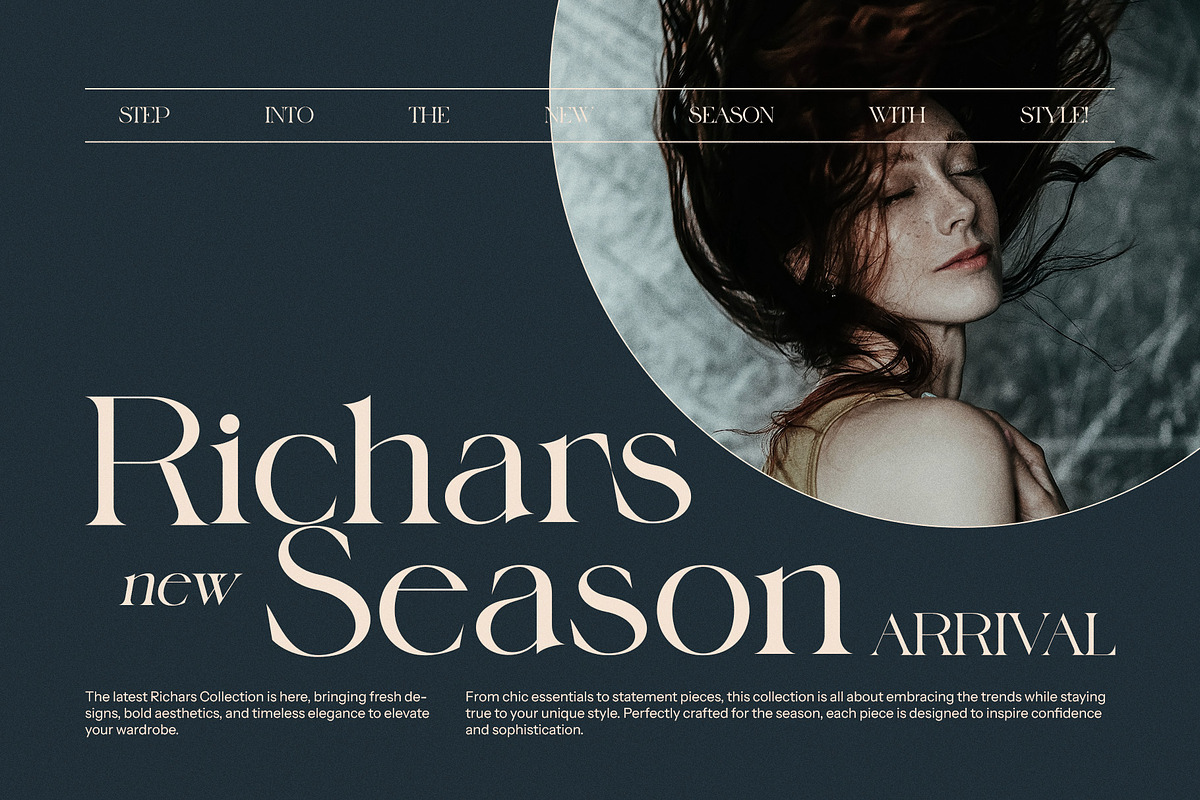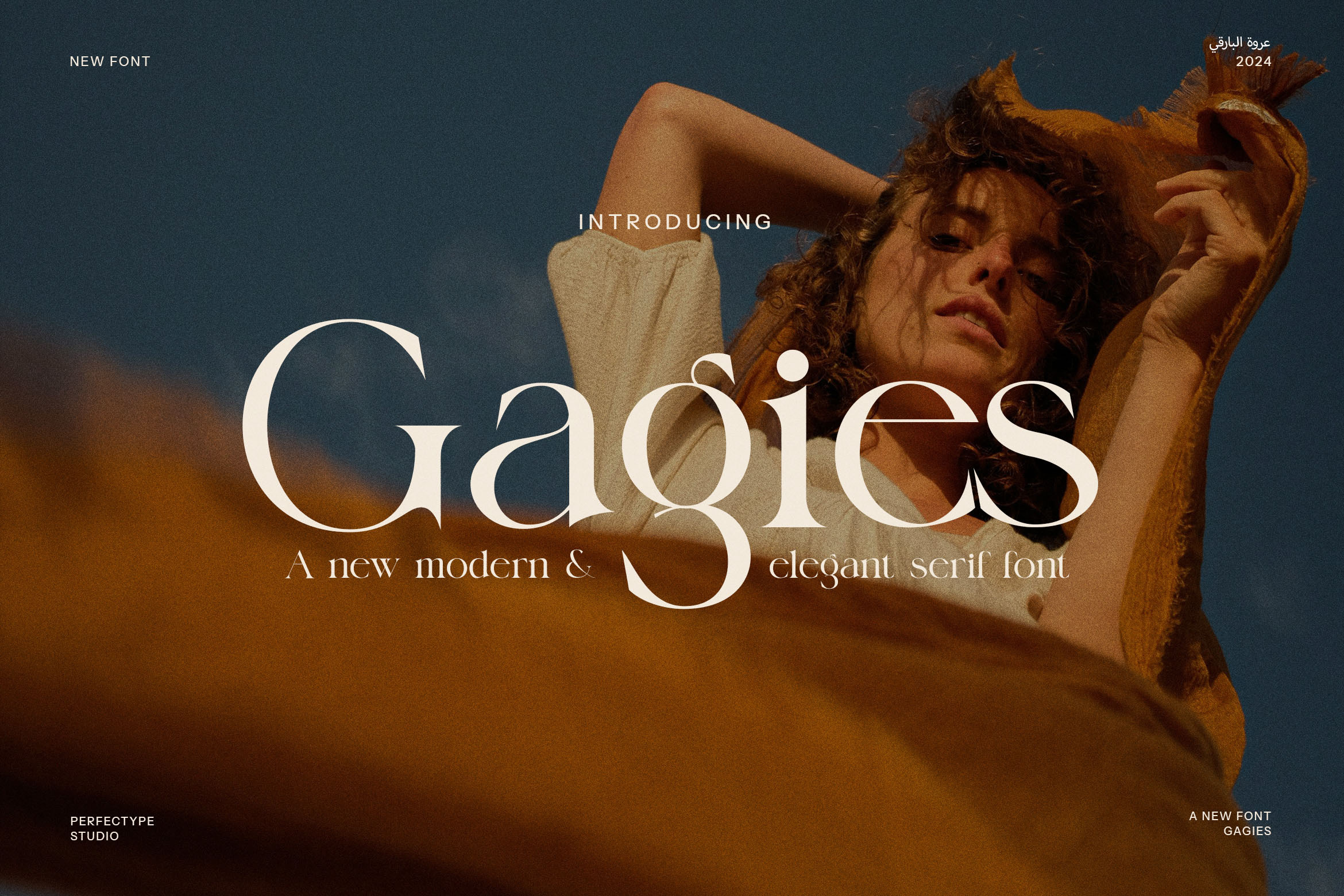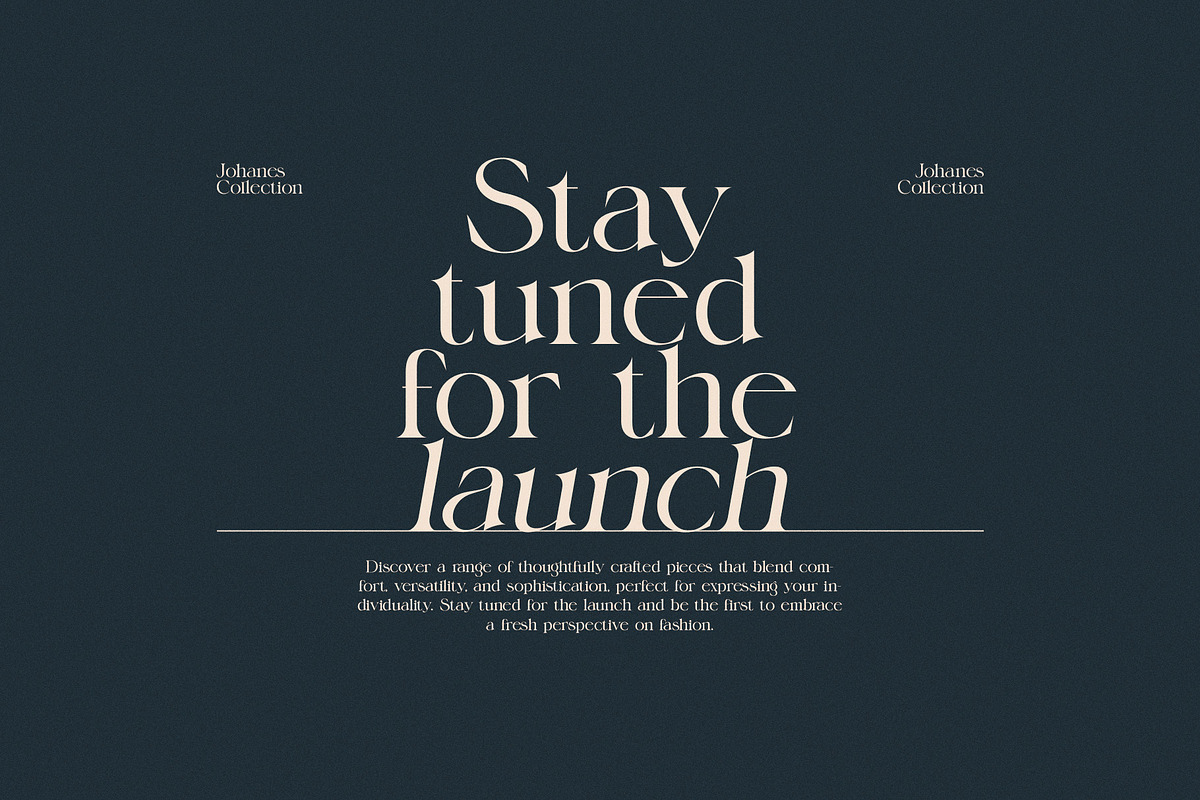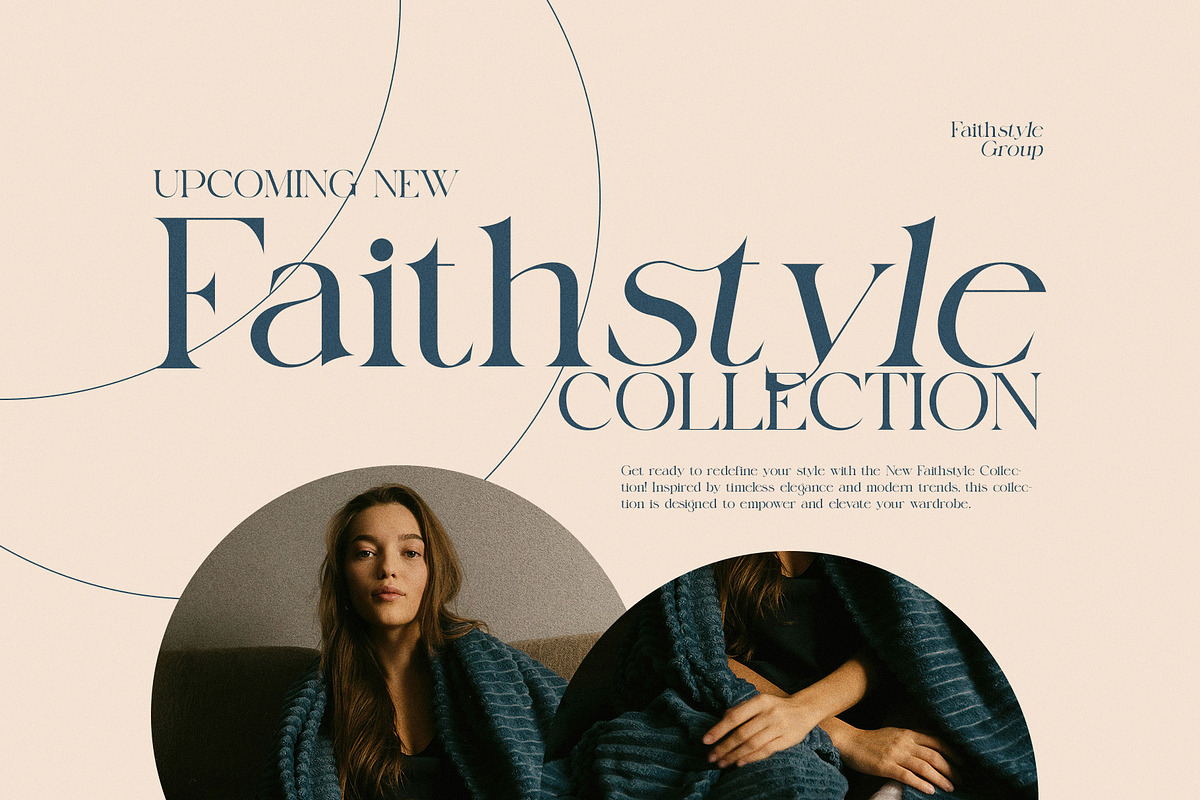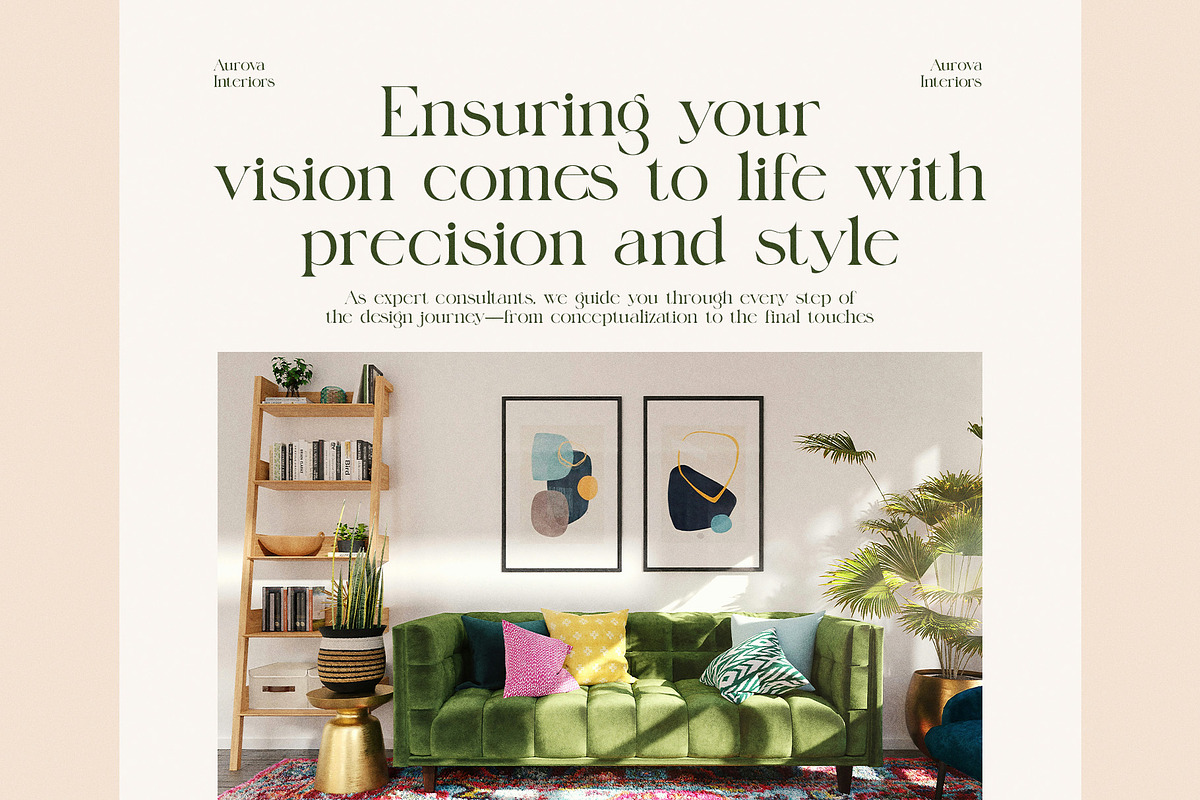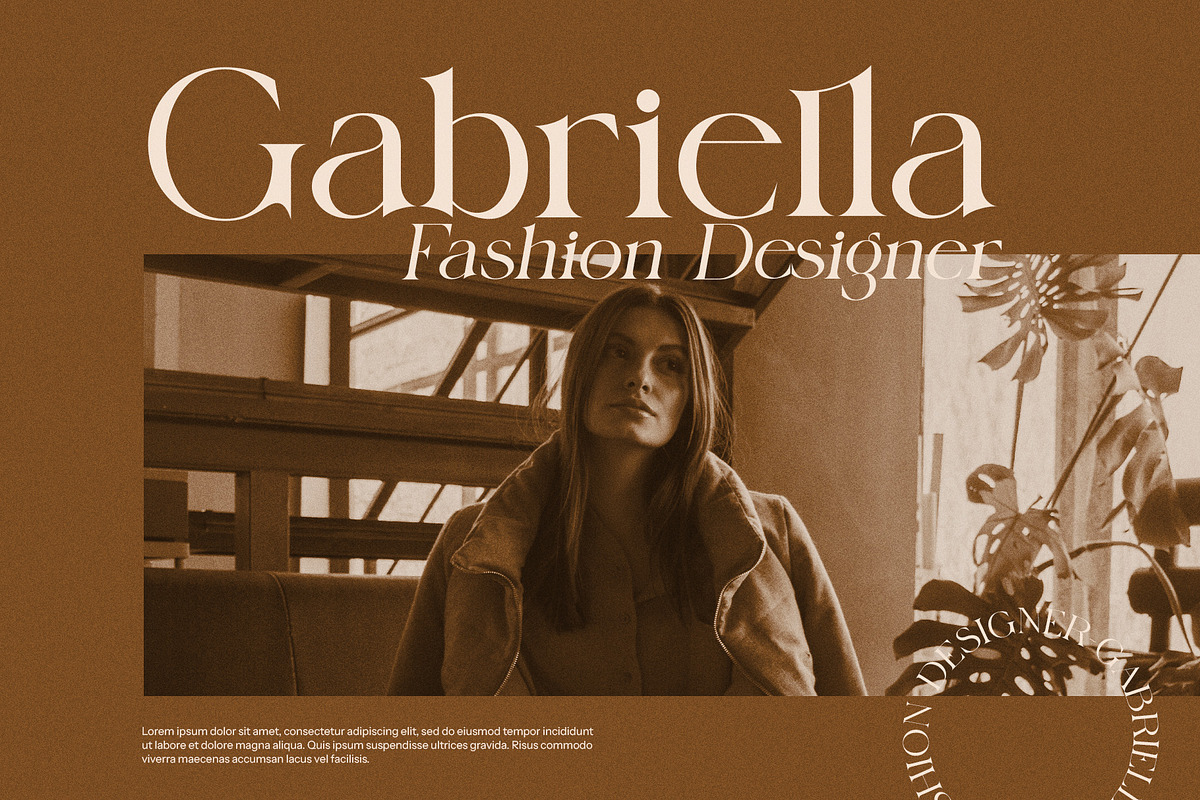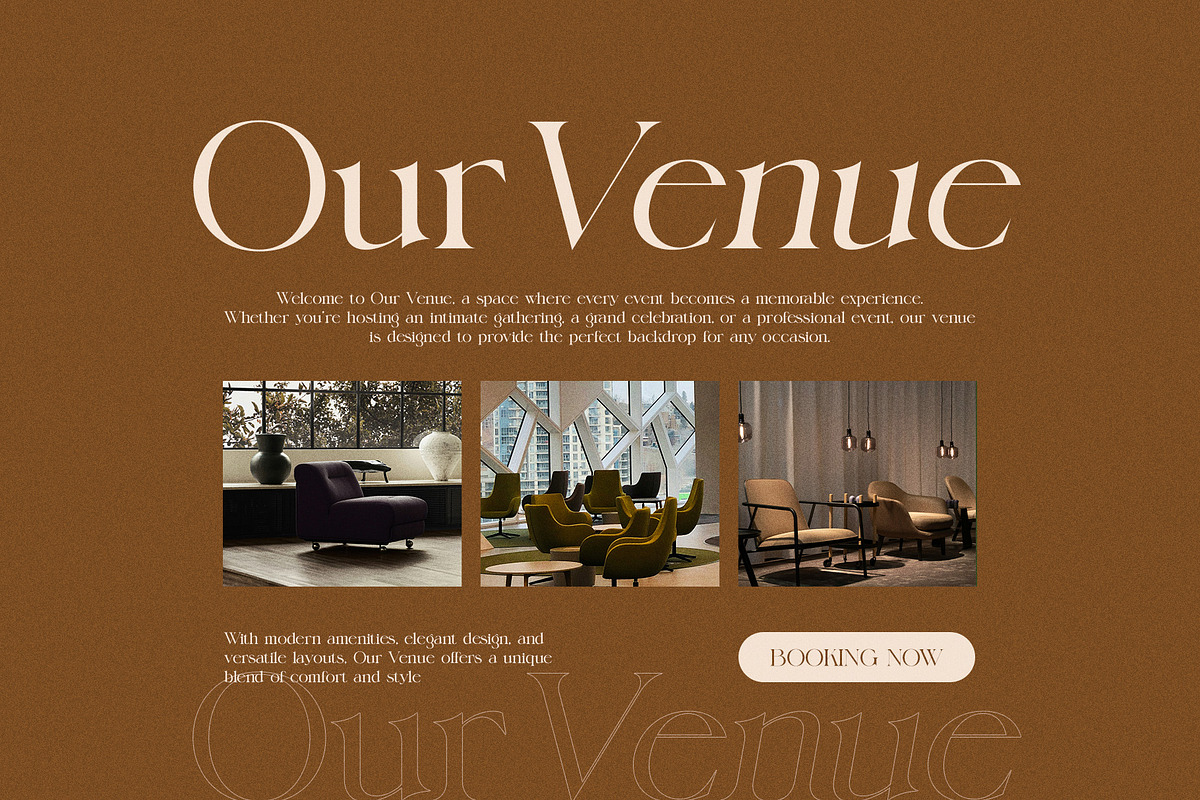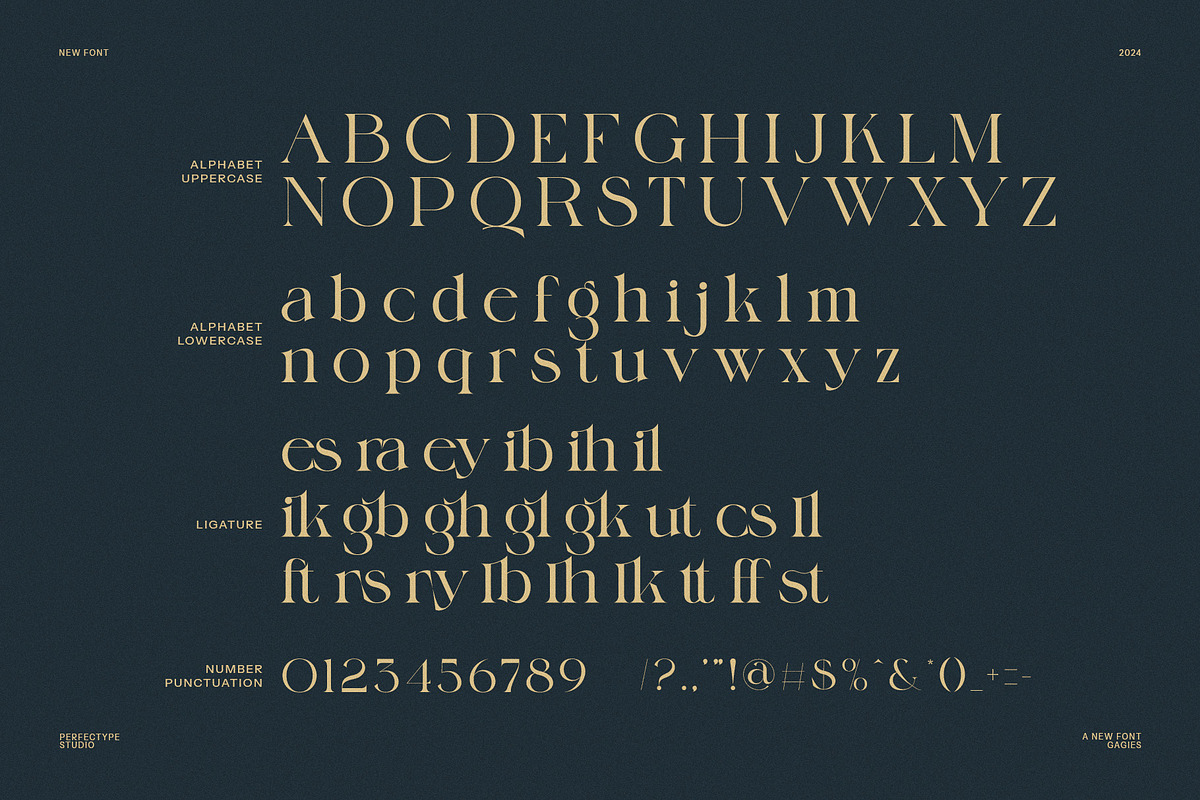
Gagies Modern Serif Font
Gagies Modern Serif Font is a striking and contemporary typeface designed to make an impact. With its clean, refined serifs and stylish letterforms, this font brings a sense of elegance and modernity to any design. What sets Gagies apart are its unique ligatures and alternate characters, where several letters seamlessly merge into one-of-a-kind shapes, adding a creative and sophisticated touch to your projects.
This versatile font is perfect for a variety of applications, from branding and logo design to websites, magazines, and advertisements. Whether you’re working on product packaging, boutique signage, or promotional materials, Gagies Modern Serif Font is designed to stand out and leave a lasting impression. Its beautiful combination of contemporary design and timeless serif elements makes it ideal for businesses looking to project luxury, creativity, and professionalism.
Gagies is more than just a font; it’s a powerful design tool that adds personality and flair to any project. The elegant and distinctive shapes of its characters make it perfect for high-end brands, luxury products, and creative industries that want to make an unforgettable statement. Whether it’s for food branding, magazine layouts, or digital content, Gagies Modern Serif Font offers flexibility, style, and sophistication.
Elevate your design with the unique charm and elegance of Gagies Modern Serif Font — the perfect typeface to bring your creative vision to life with flair and distinction.